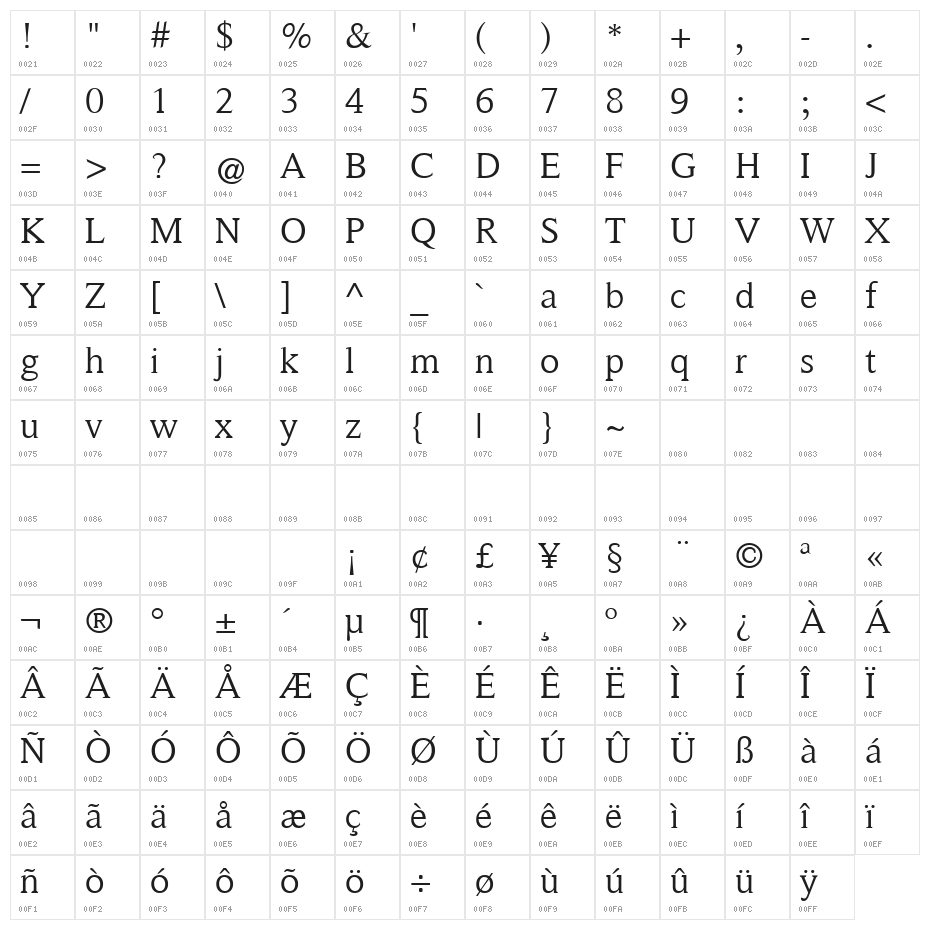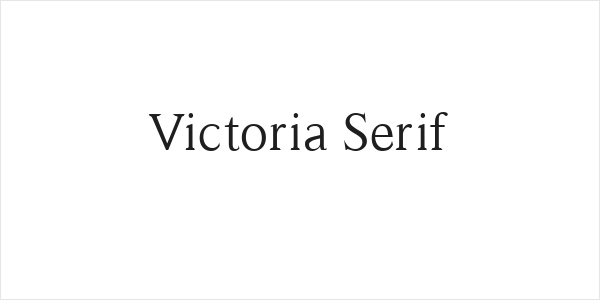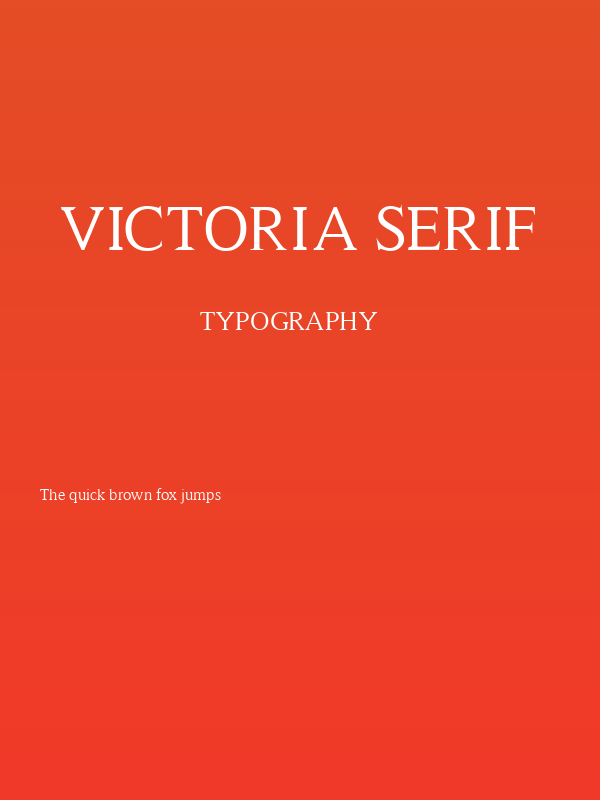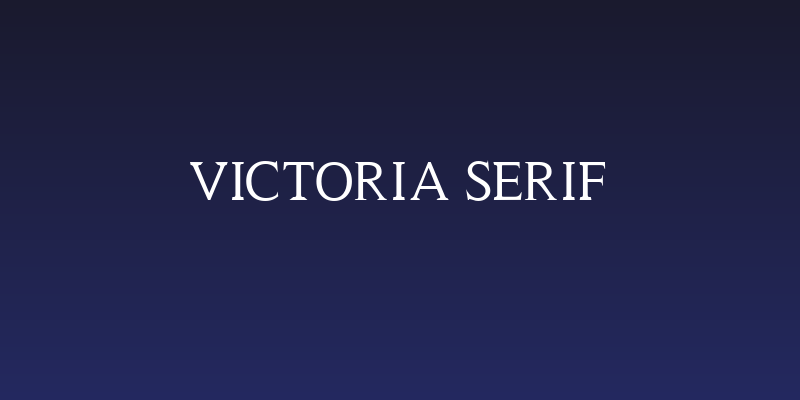
Victoria Serif Font
Victoria Serif Description
This serif typeface exudes a classic and timeless elegance, characterized by its refined and well-proportioned letterforms. The uppercase letters are bold and commanding, while the lowercase letters maintain a graceful and fluid appearance. The numerals are clear and distinct, ensuring readability across various applications. The special characters are thoughtfully designed, complementing the overall aesthetic of the typeface. The strokes are moderately contrasted, providing a balanced visual weight that enhances legibility without sacrificing style. This font is versatile, suitable for both digital and print media, and can be effectively used in a variety of design contexts.
| Proposed Projects | Ideal for editorial design, book covers, formal invitations, and branding projects that require a touch of sophistication. |